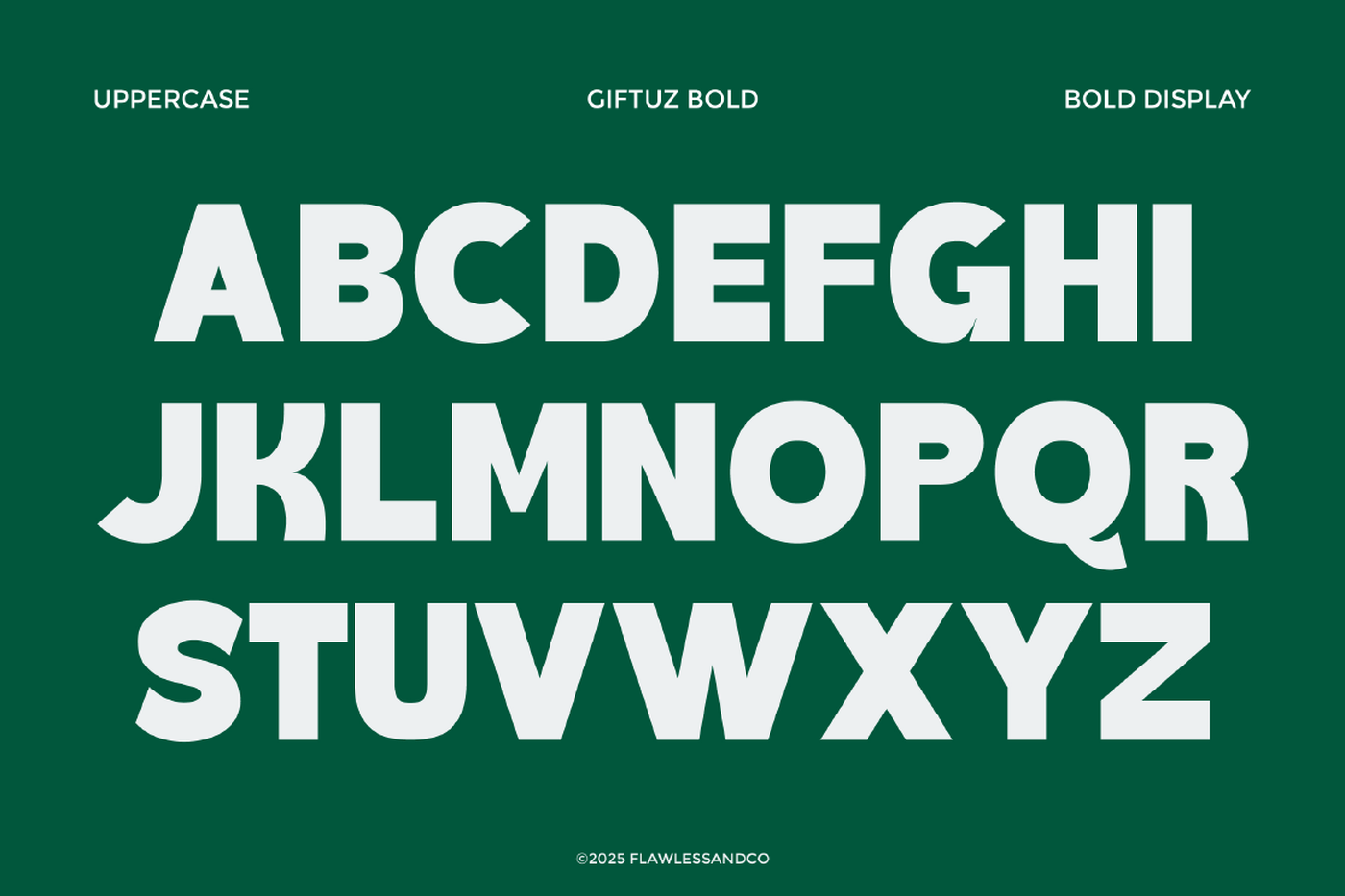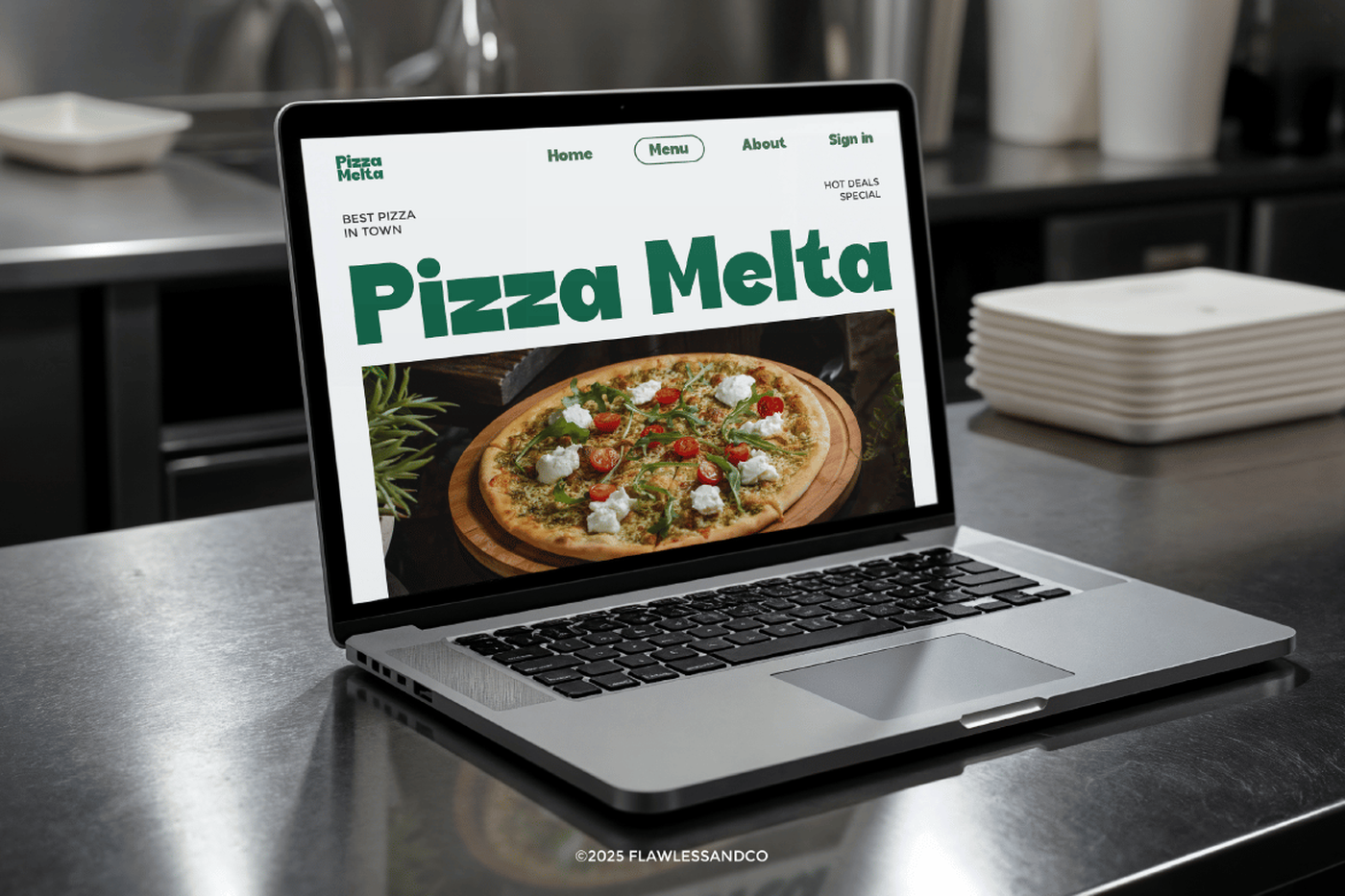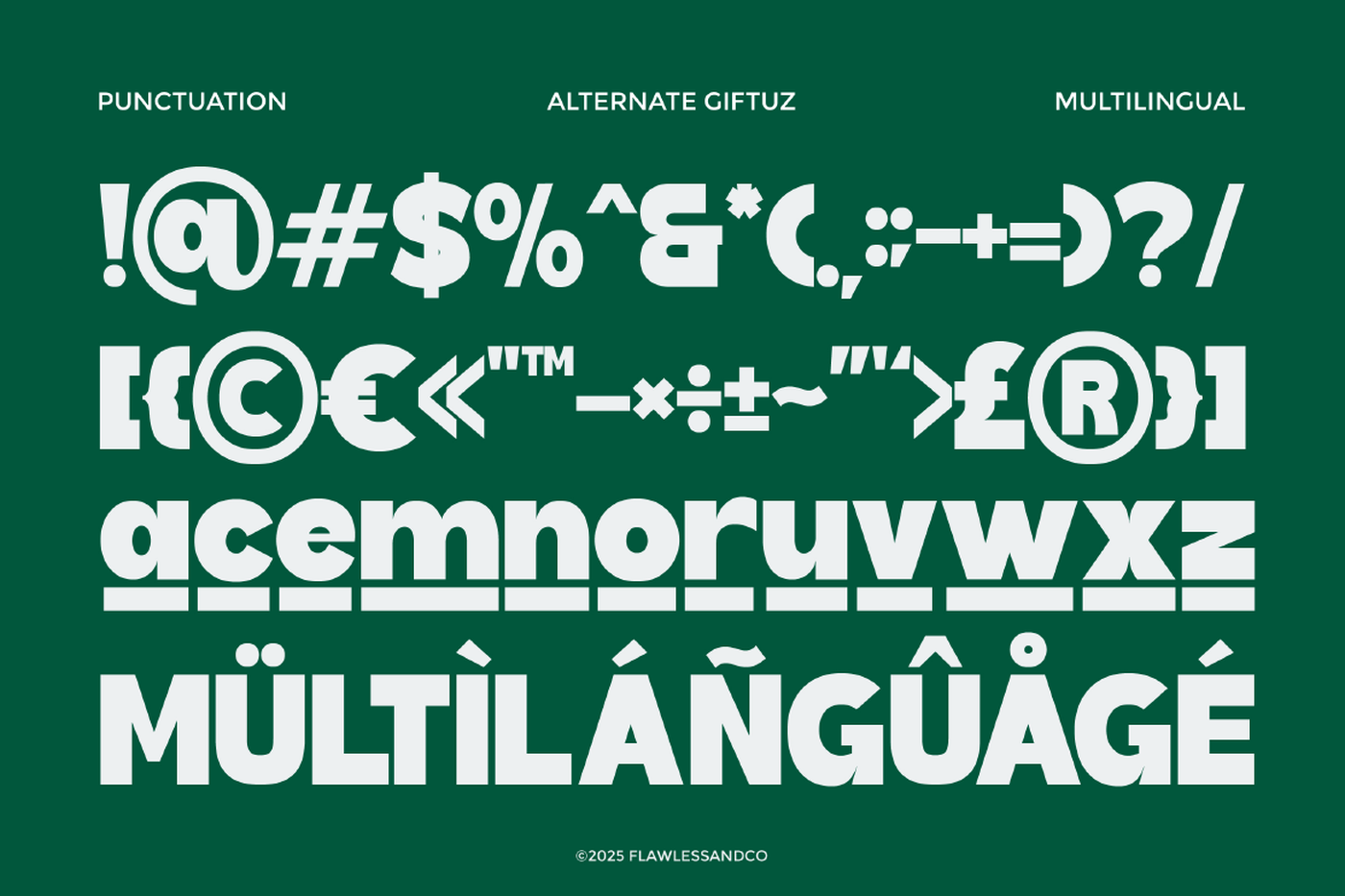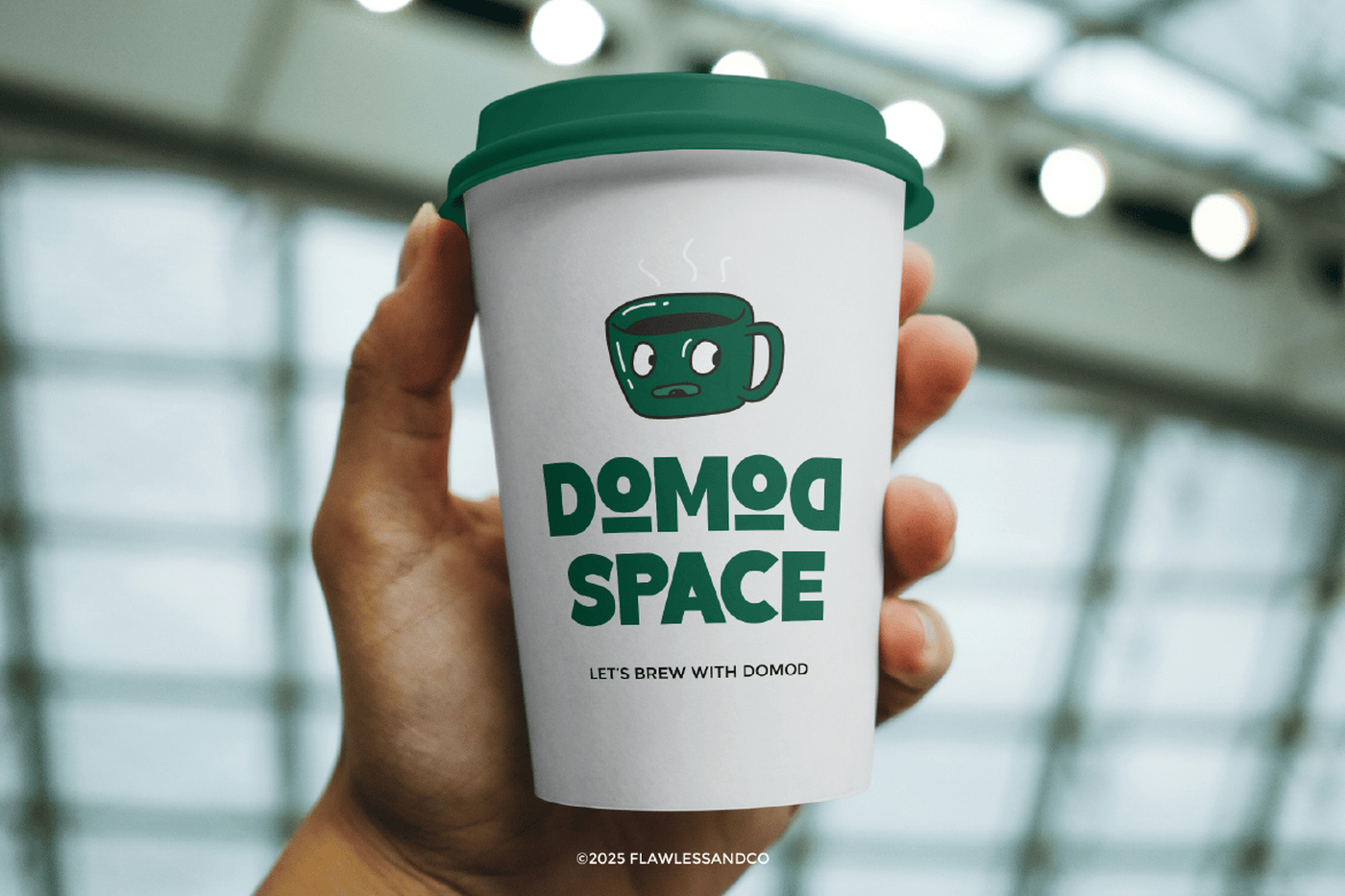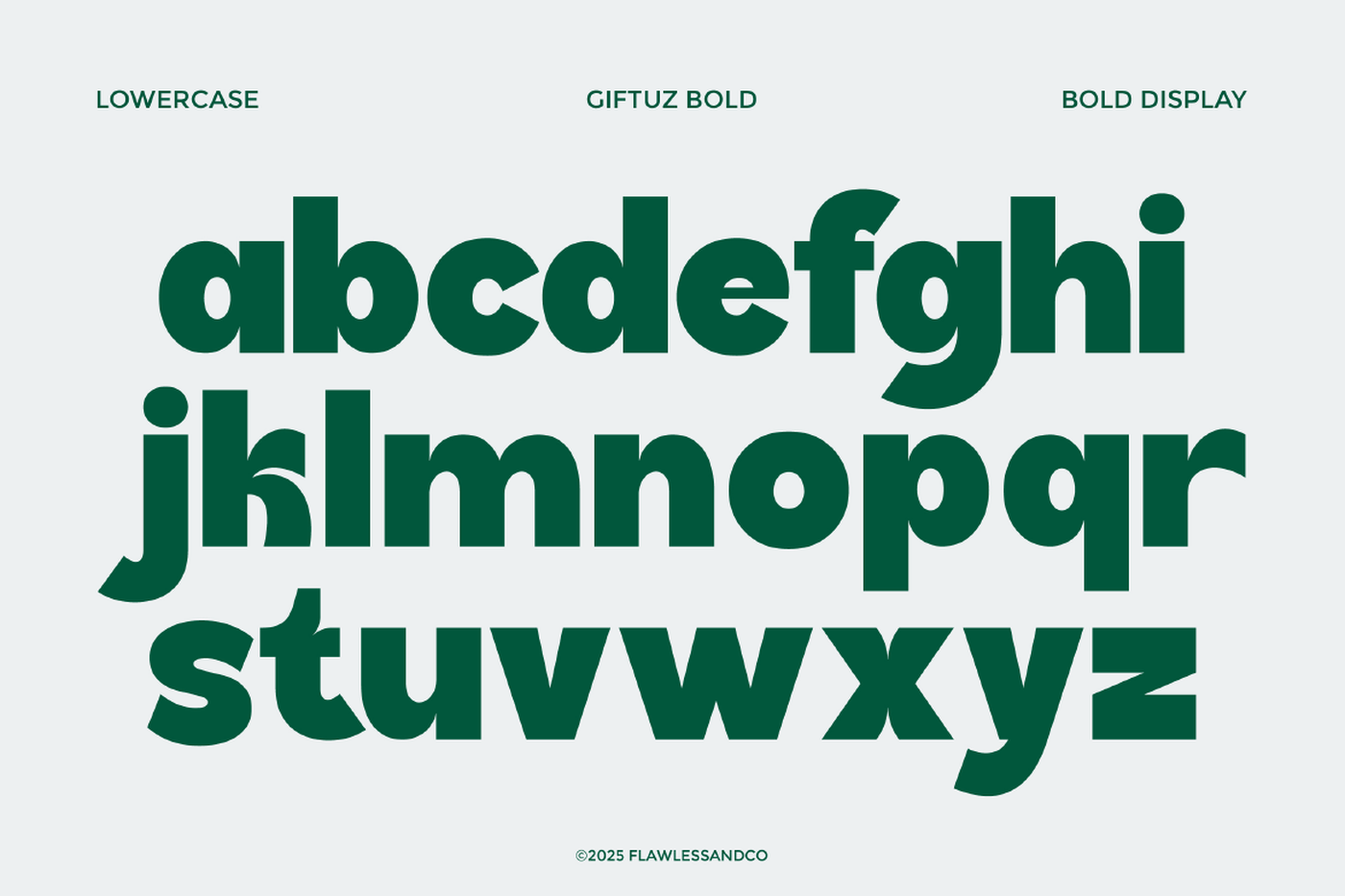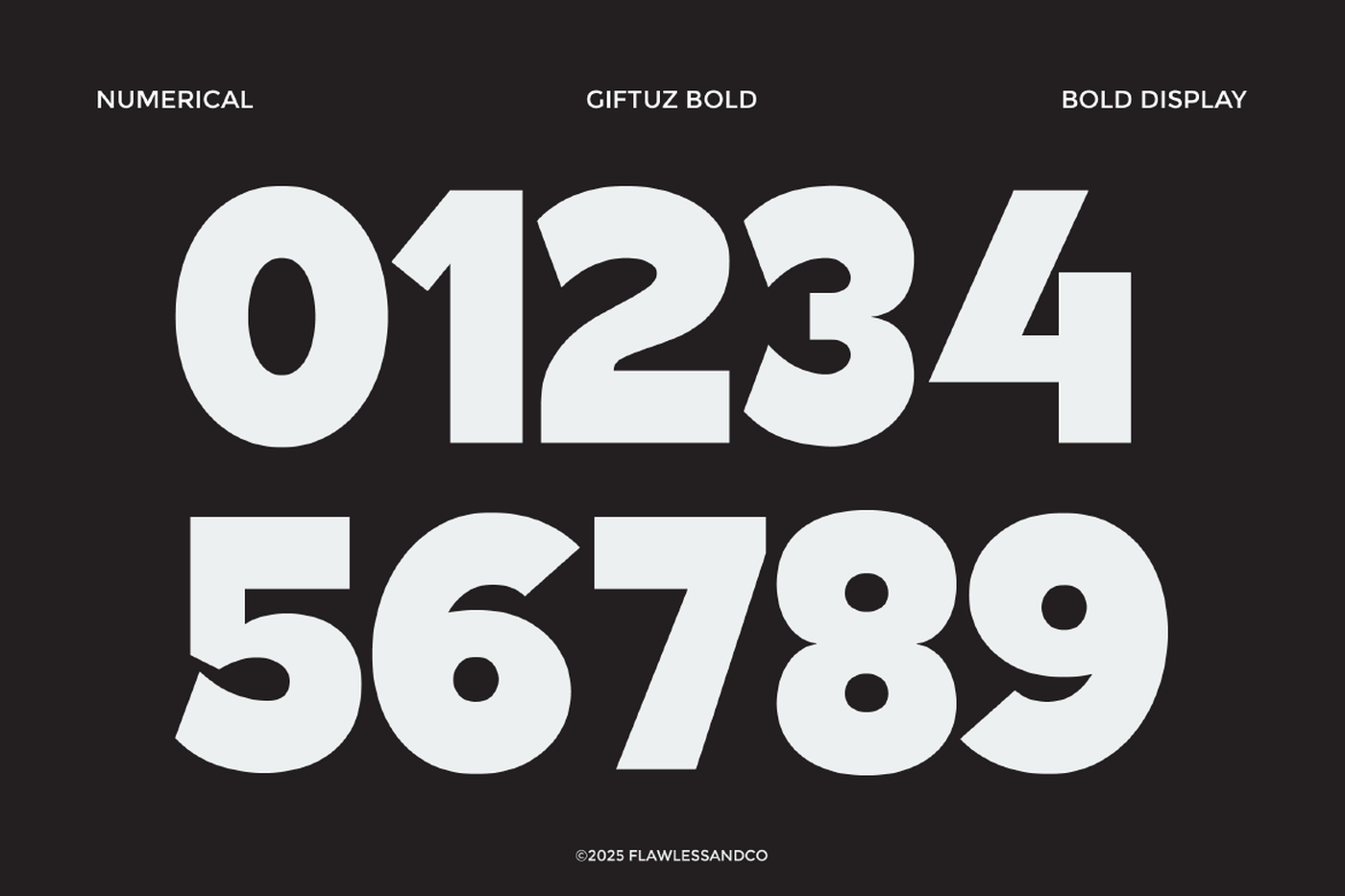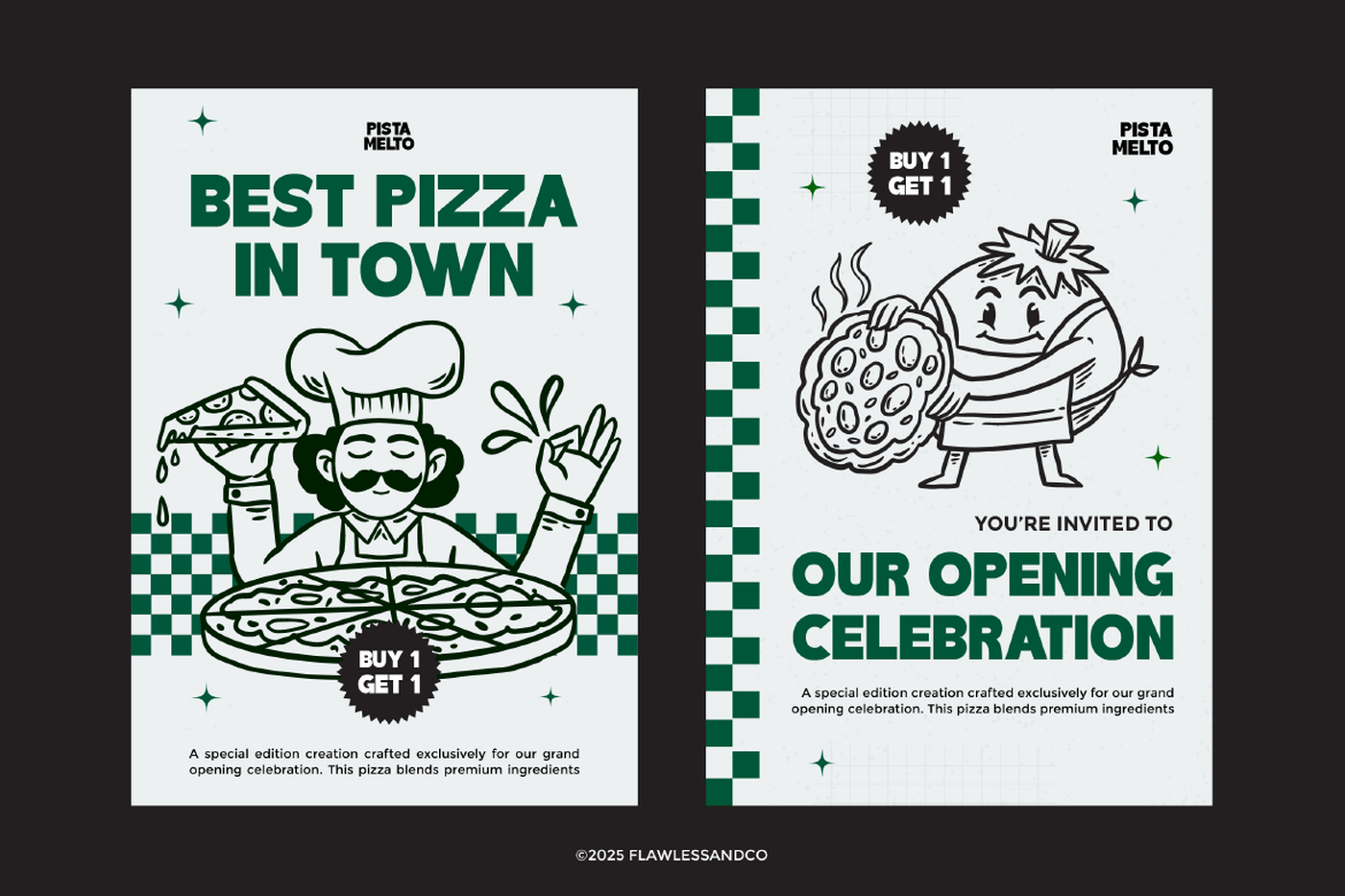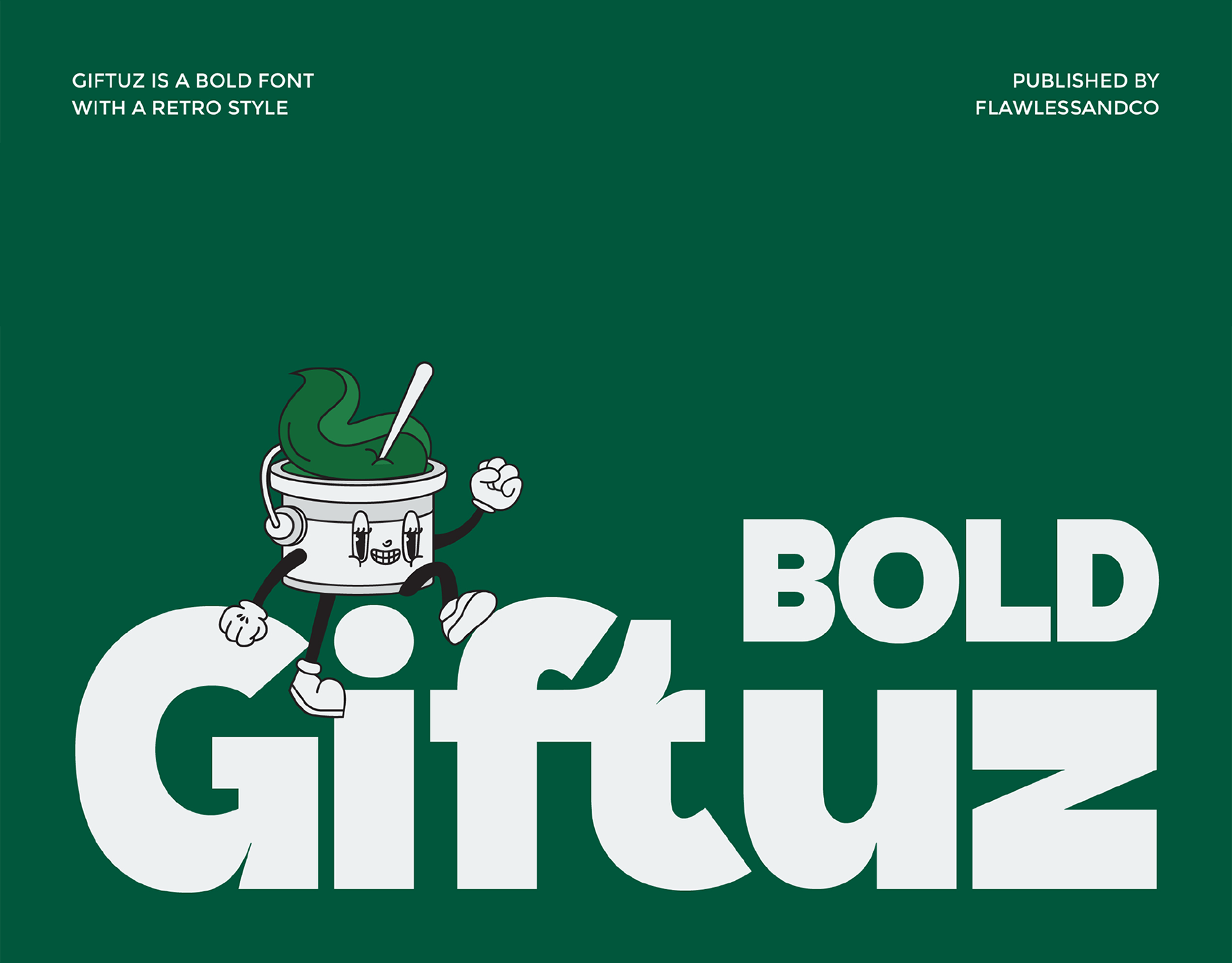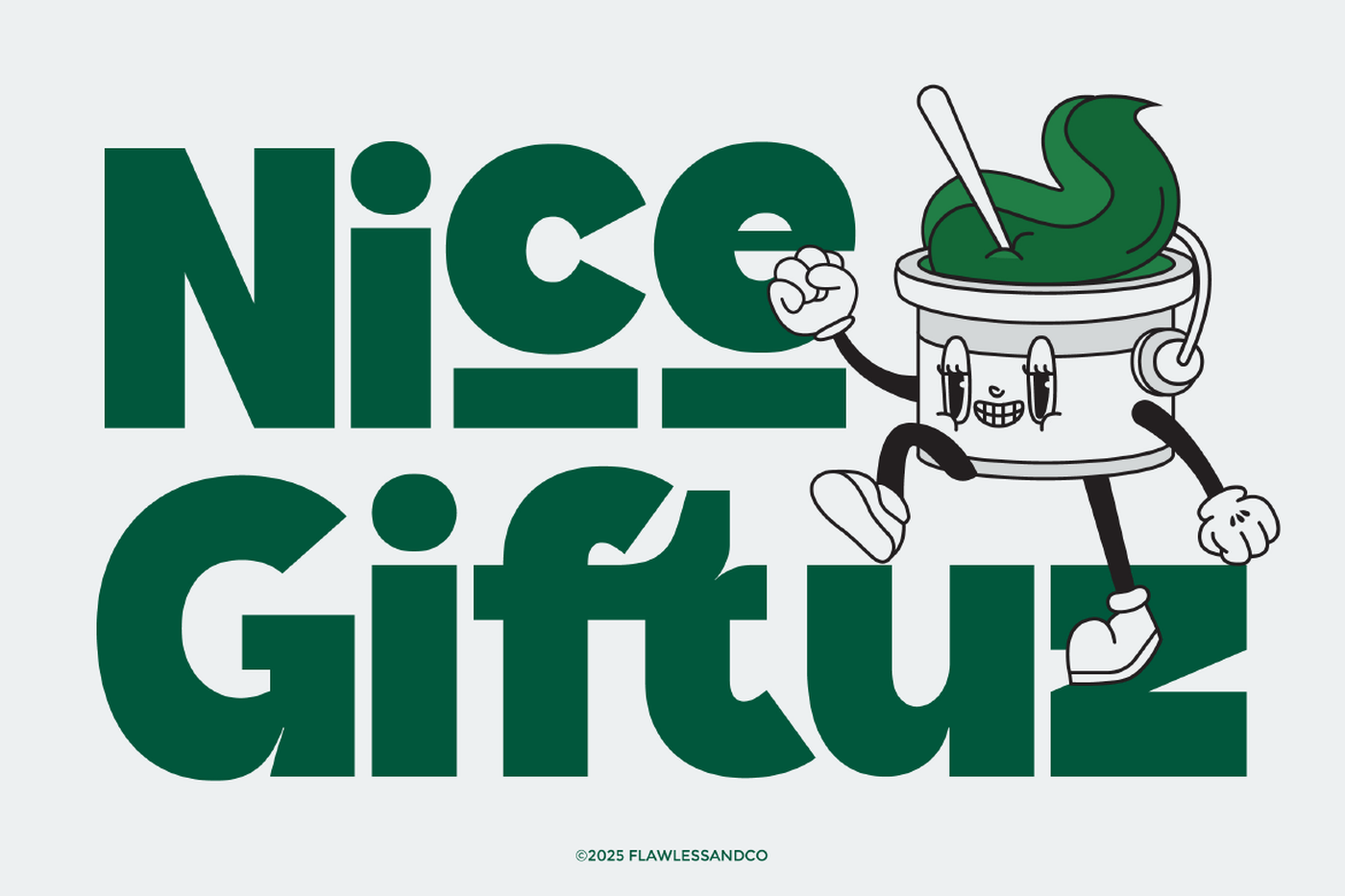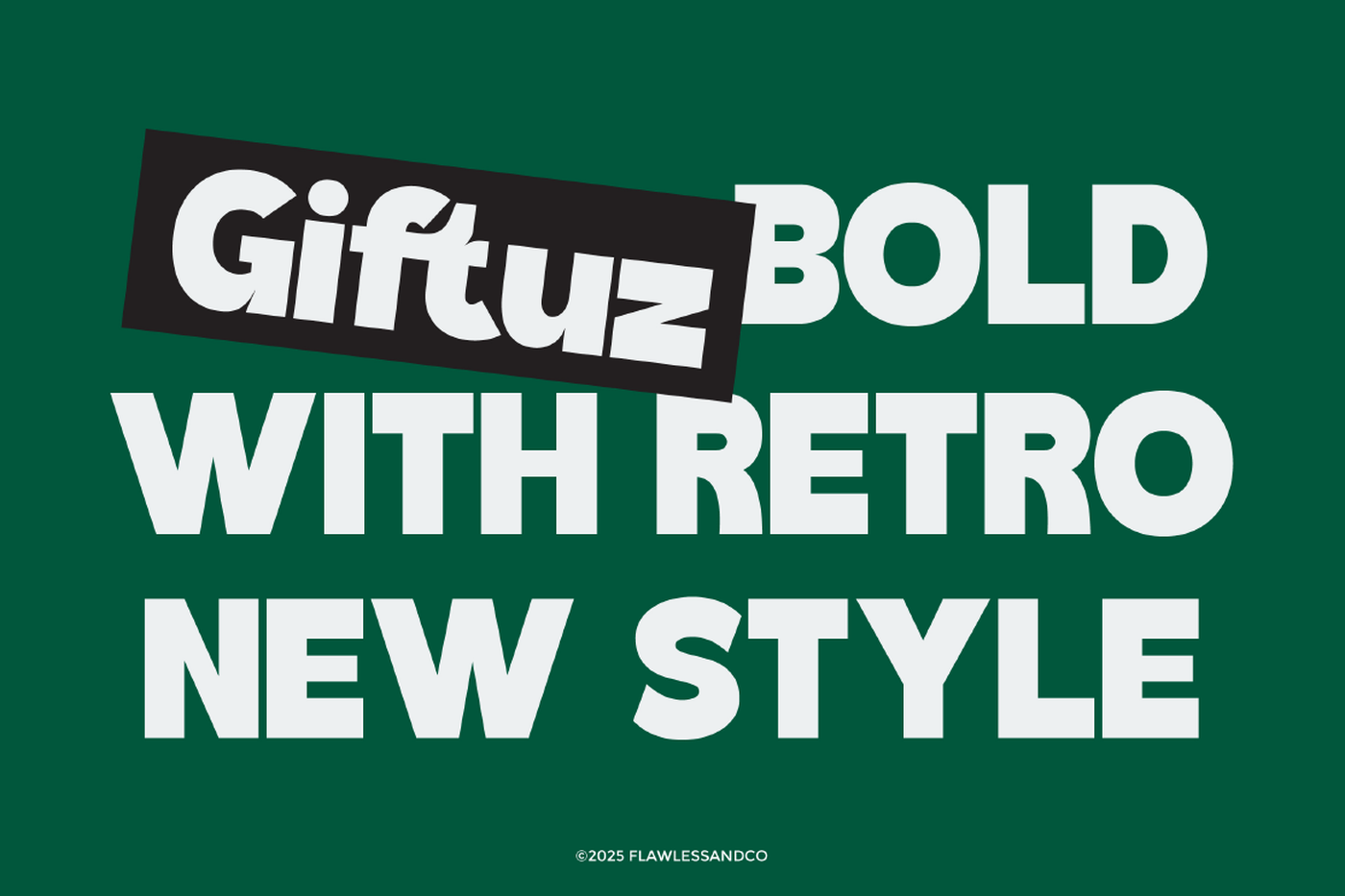
Giftuz - Bold Sans Serif Font
Giftuz is a bold and playful sans serif font designed to bring strong personality and retro charm into your designs. With thick shapes, smooth curves, and a fun, energetic vibe, Giftuz is perfect for branding that needs to stand out with confidence and character. This font blends modern simplicity with nostalgic style, making it incredibly versatile for bold headlines, creative logos, packaging, posters, merchandise, and anything that calls for a standout, friendly typographic presence.
Font: Giftuz